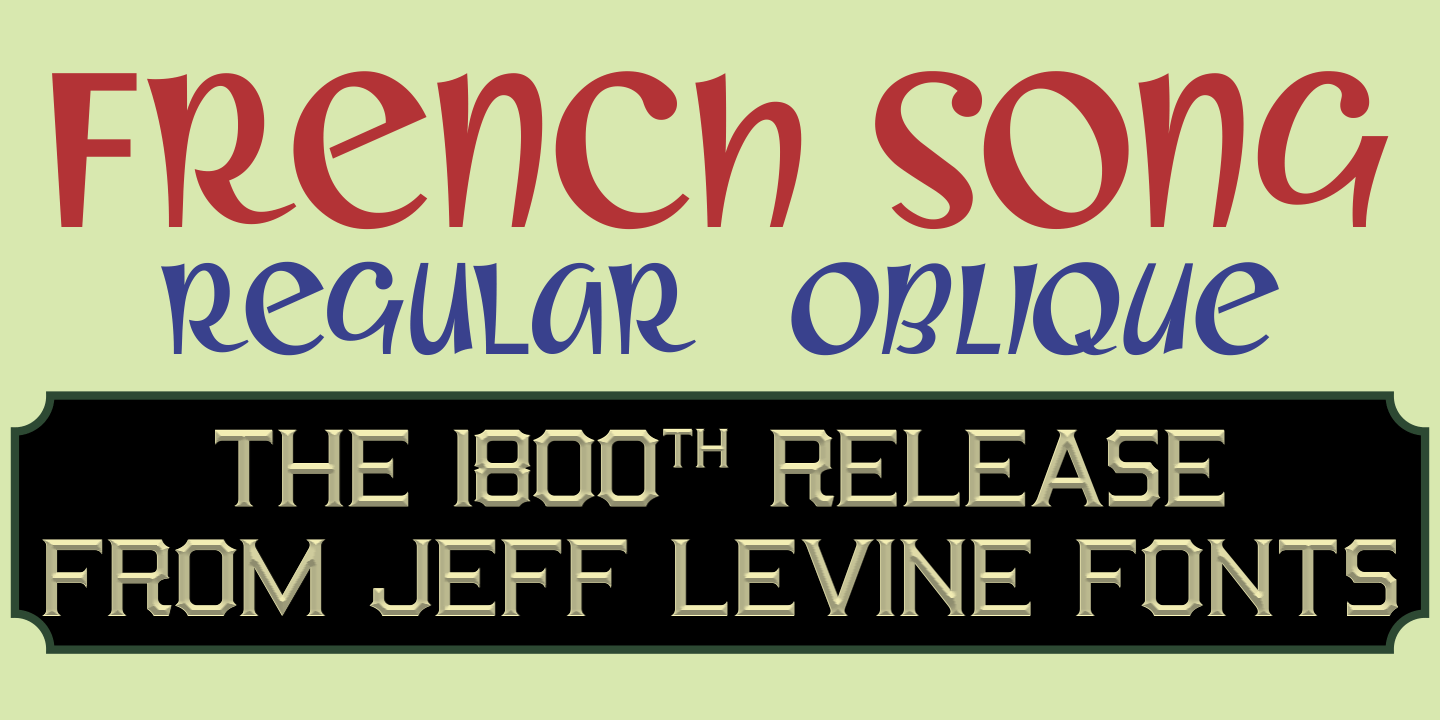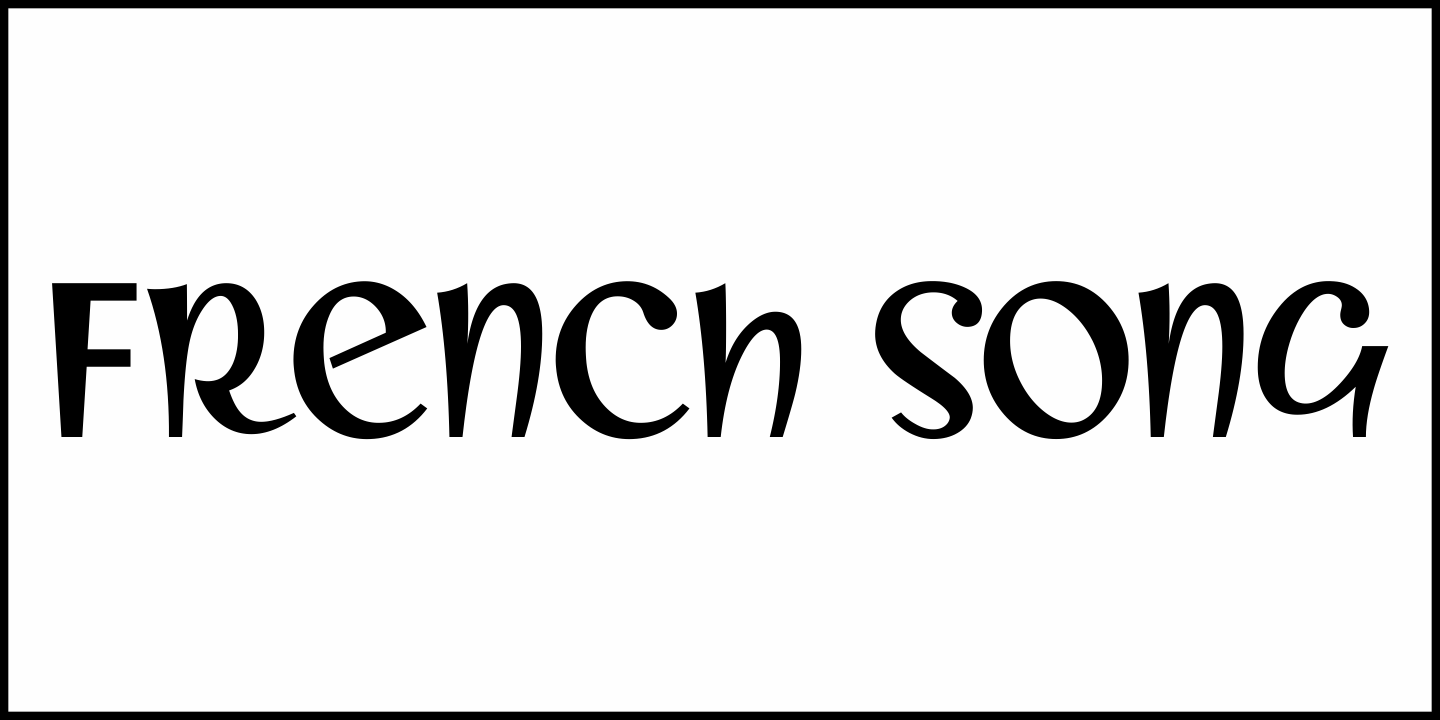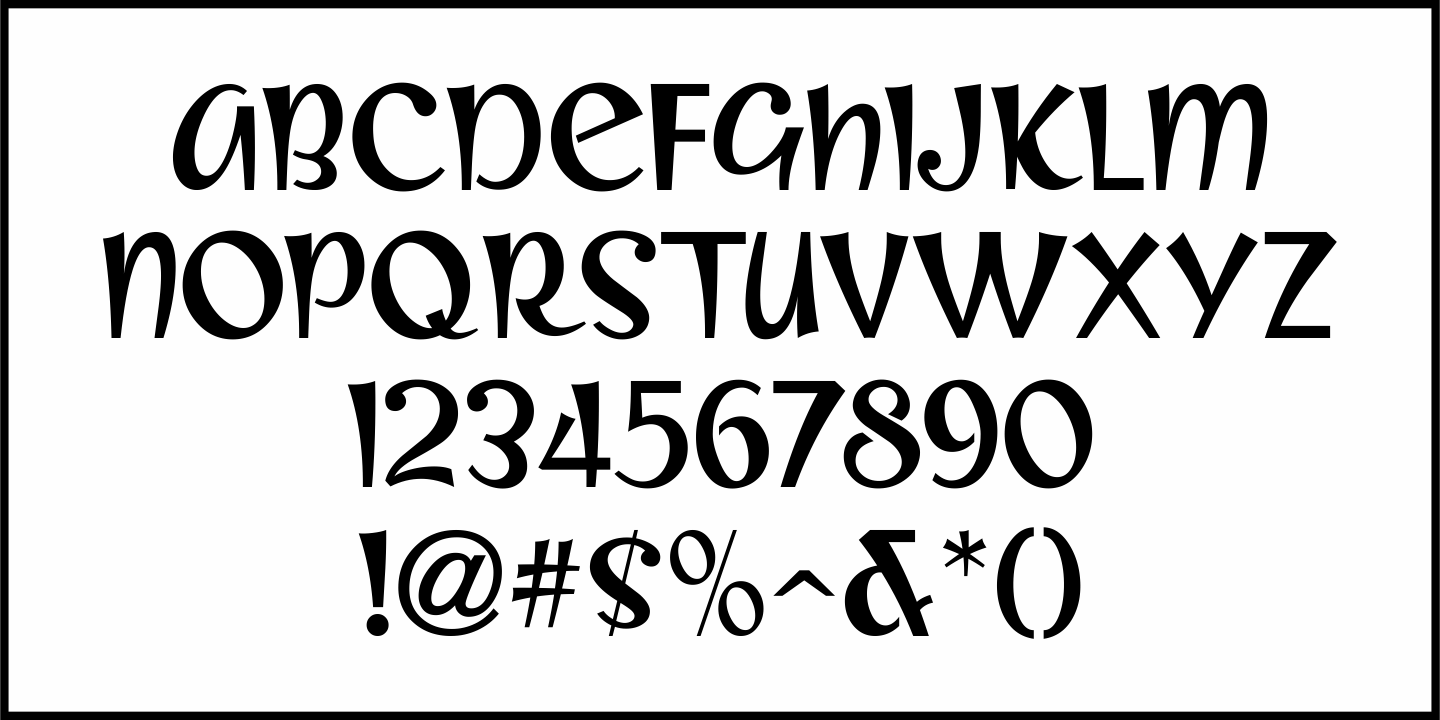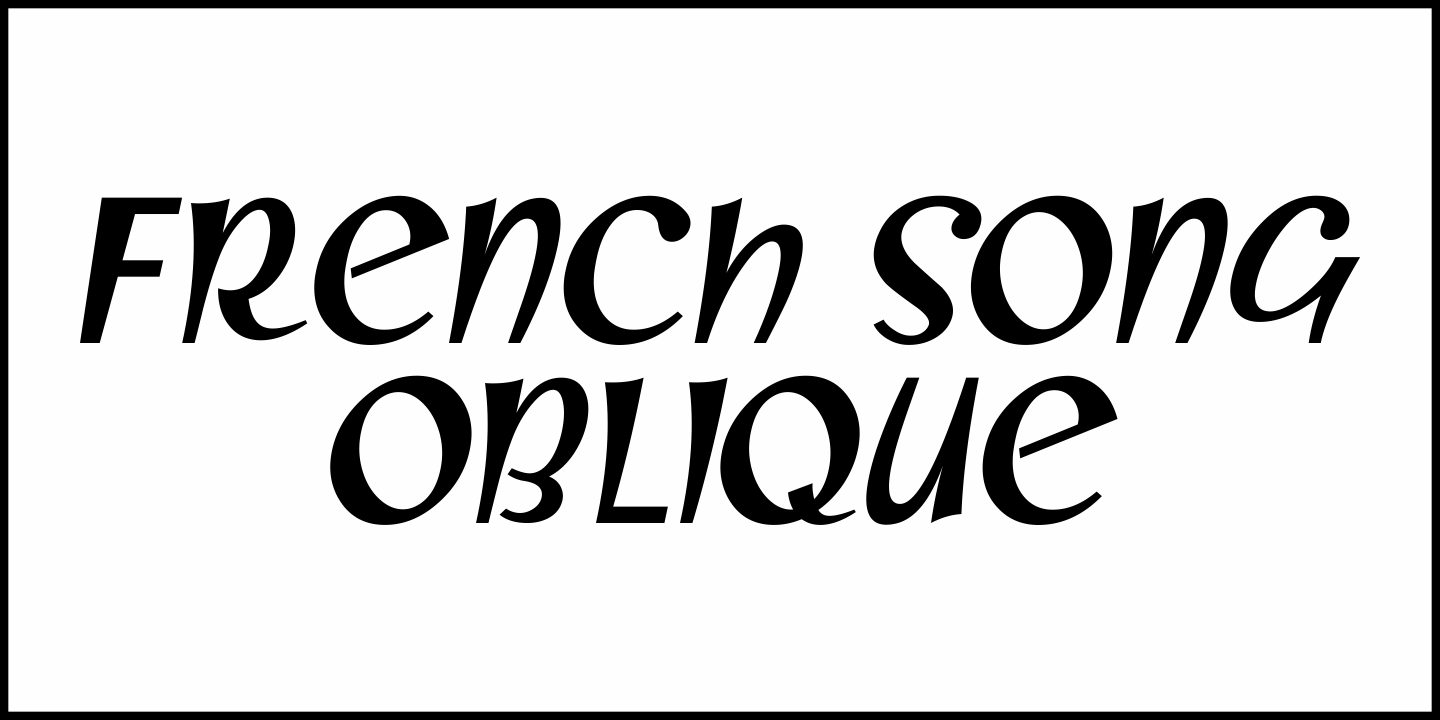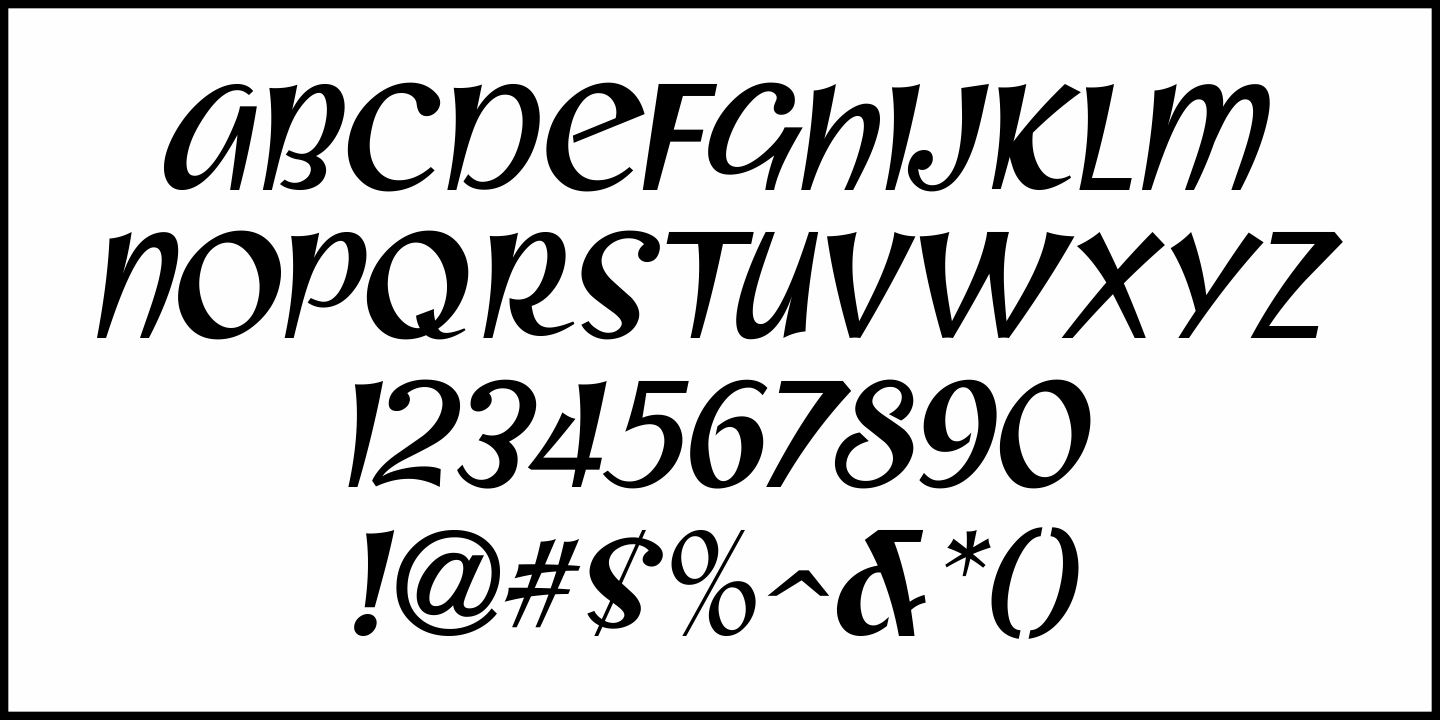
French Song
From the titles and credits of the 1952 British comedy “Song of Paris” comes this whimsical, hand lettered type design that’s casual, playful and charming.
The digital version is called French Song JNL, and is available in both regular and oblique versions.
This font release is the 1800th type design Jeff Levine Fonts has issued since its inception in January, 2006.